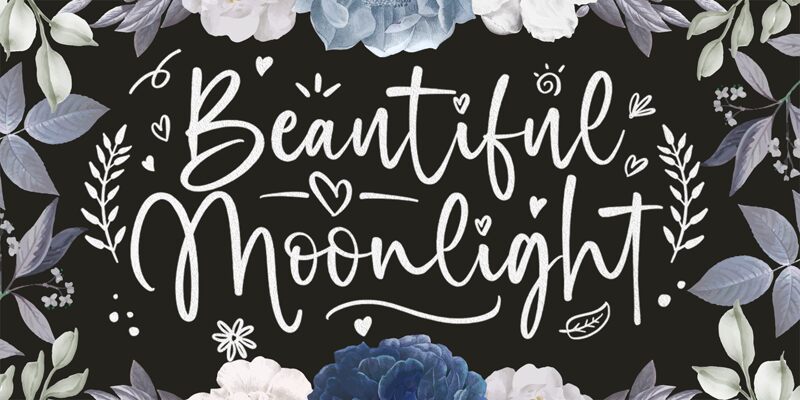
Beautiful Moonlight font, crafted by Fargun Studio, enchants with its elegant handwritten style. This free font captures a whimsical essence perfect for adding charm to any project. Its smooth, flowing lines and playful curves make it ideal for wedding invitations, greeting cards, and personal branding. Beautiful Moonlight’s aesthetic appeal lies in its balance between sophistication and approachability, creating an inviting yet distinctive visual presence.
Beautiful Moonlight
Fargun Studio